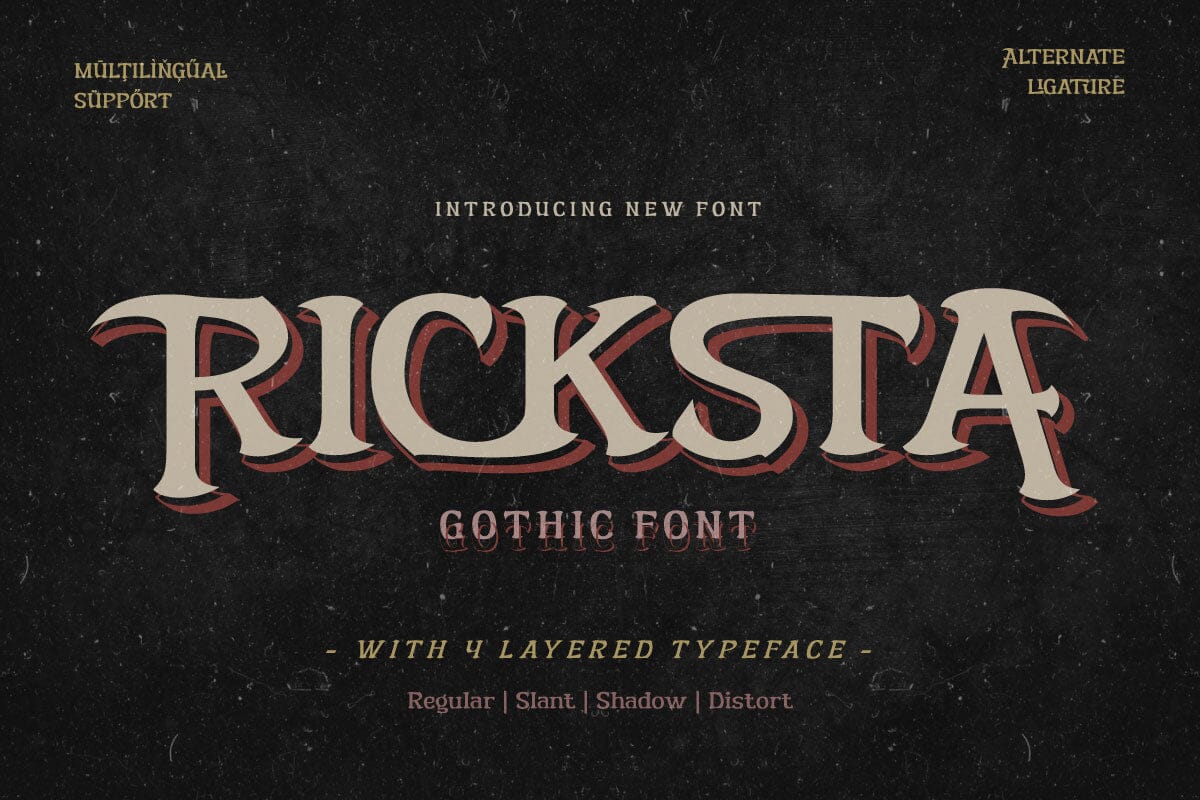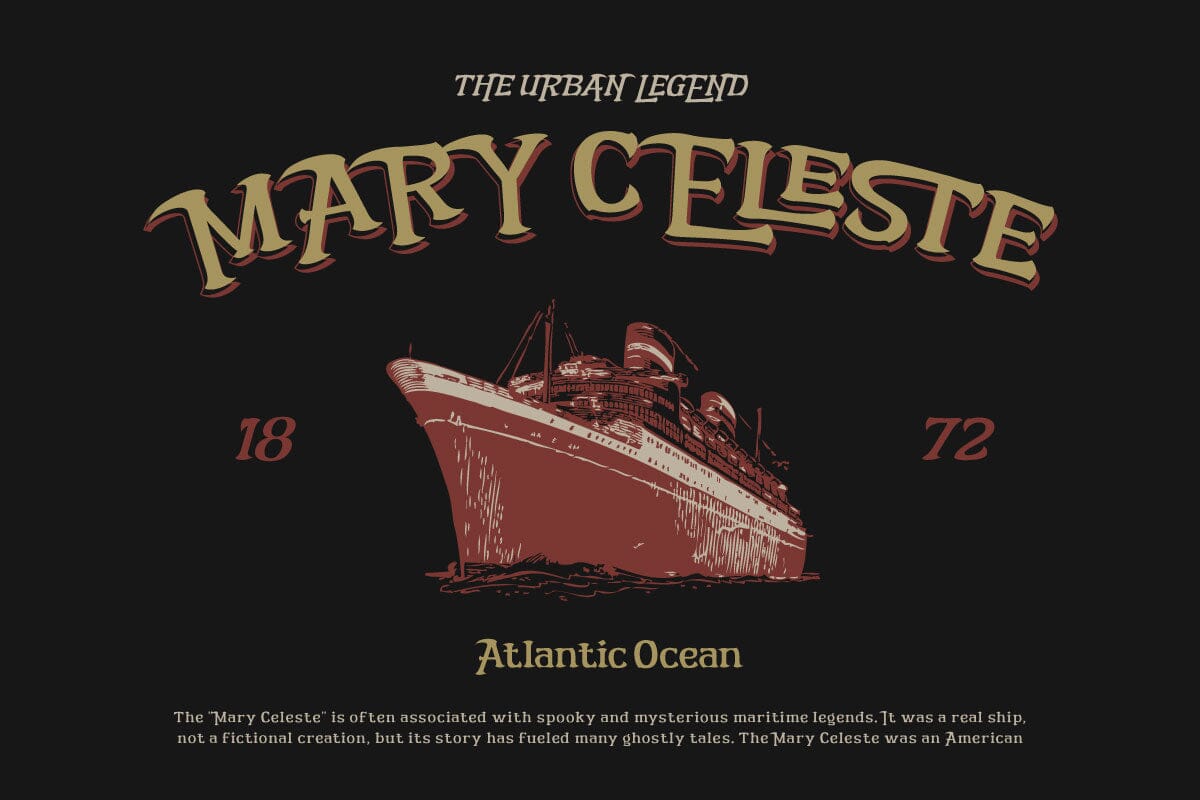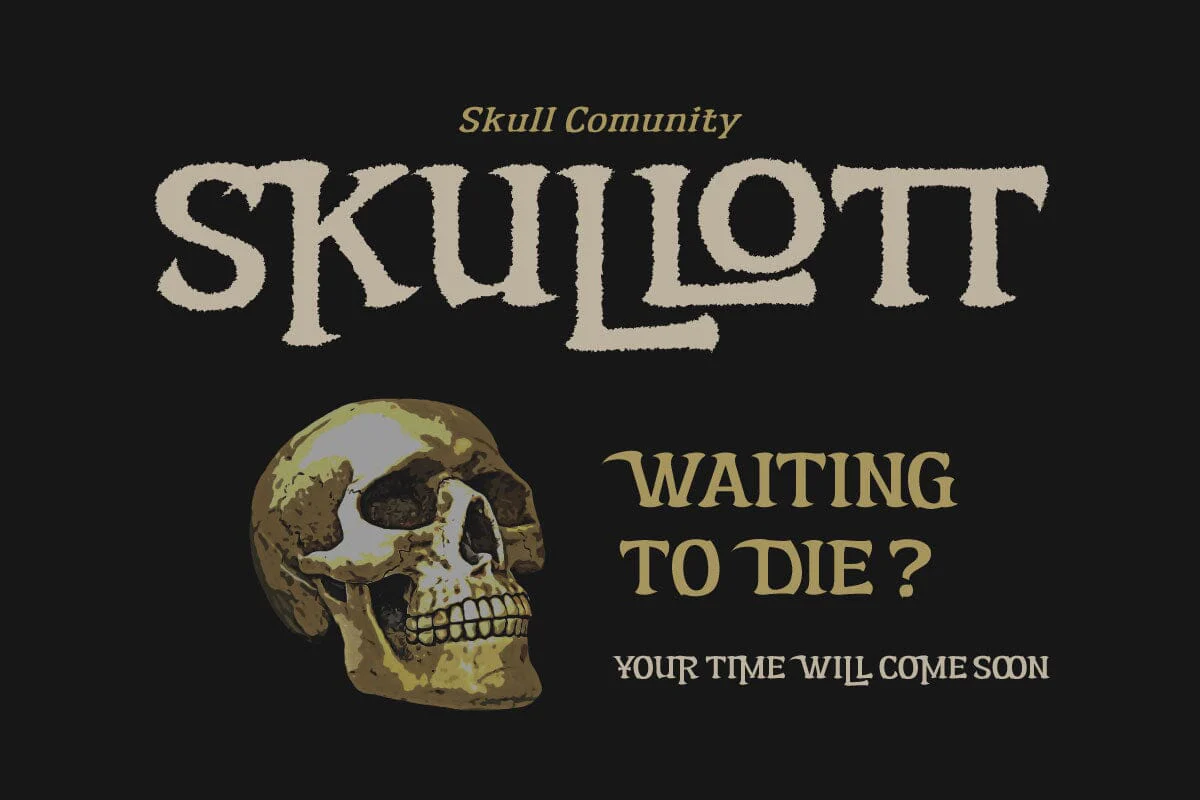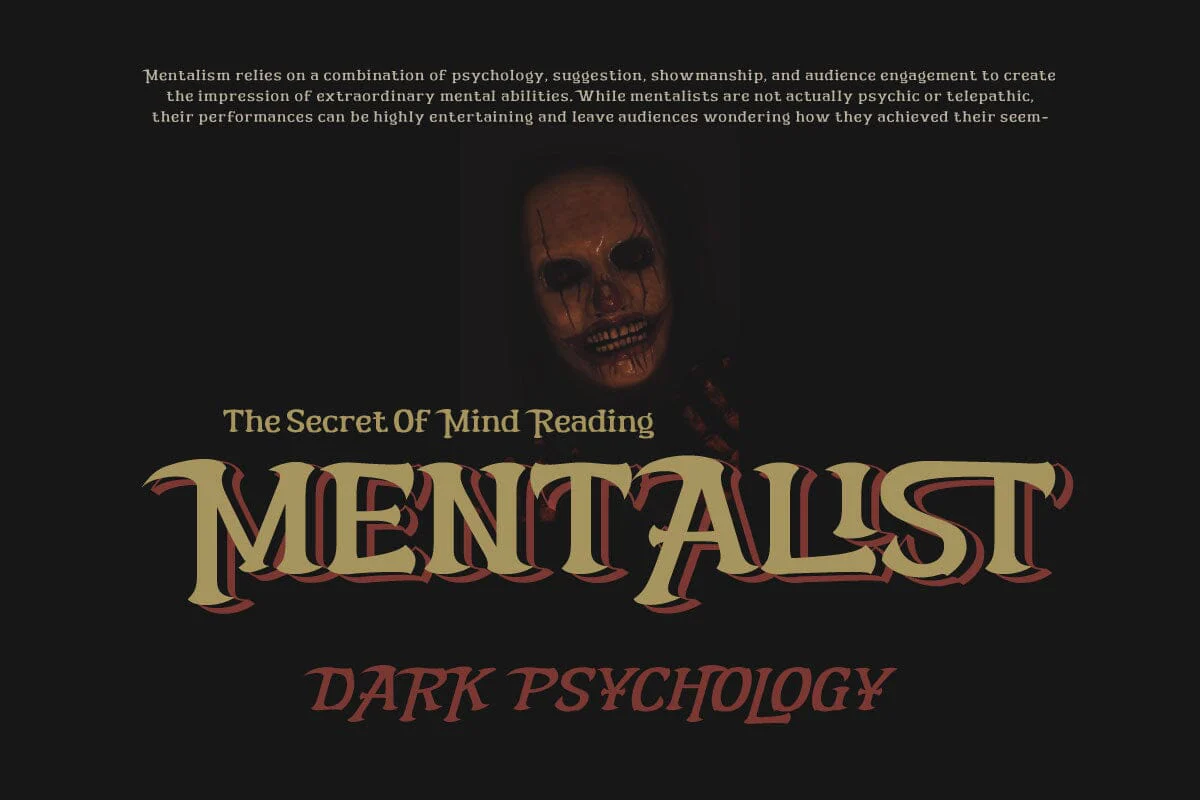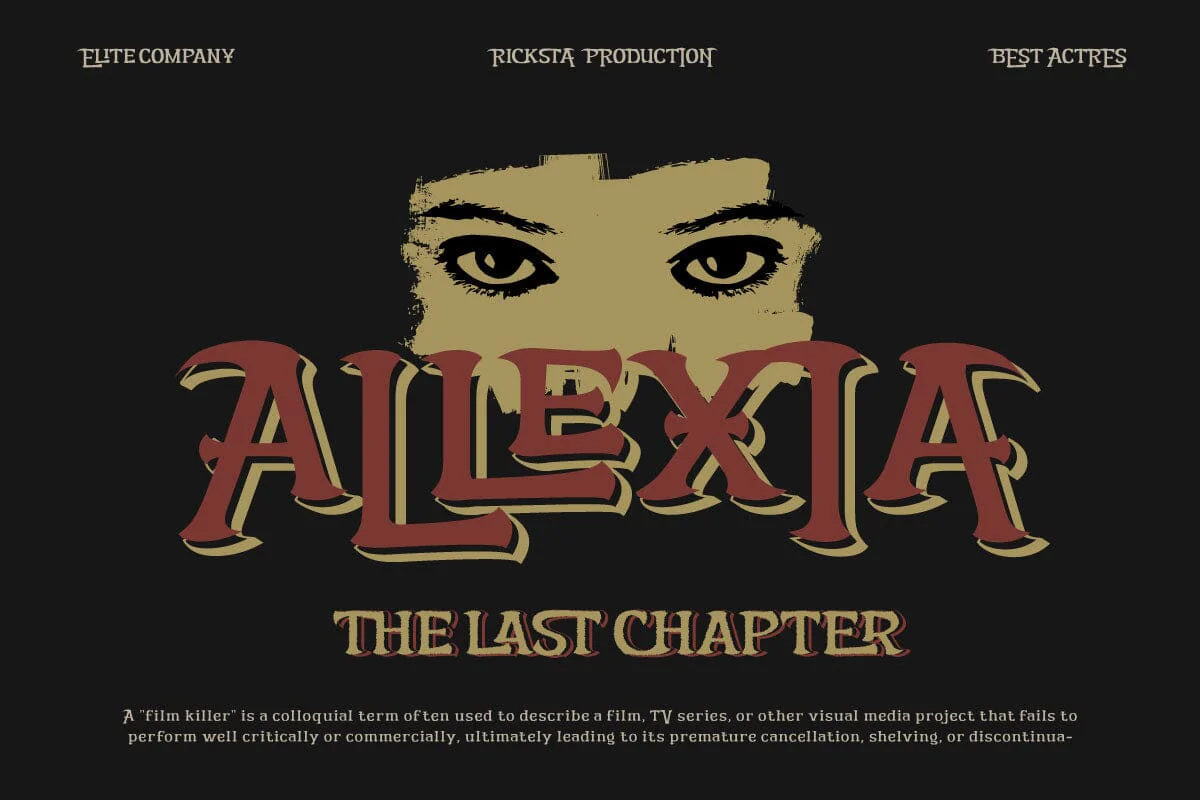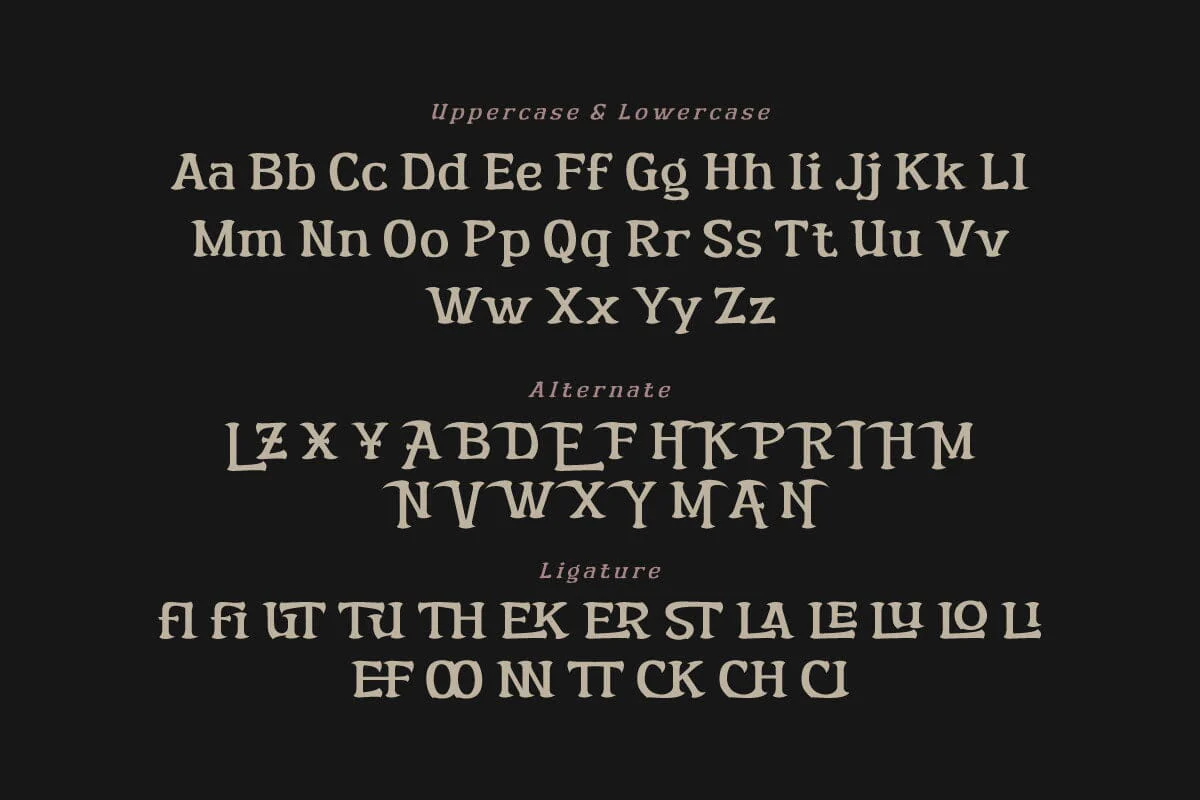
Ricksta - Gothic Font
Ricksta is a charming gothic serif font, with a unique sharp touch. If you are looking for an eye-catching and truly powerful look in your various visual branding design projects, then Ricksta is the answer.
This font has been created with detail and precision to meet the needs of your branding projects. With families that include regular, shadow, slant, and distort, you have a variety of options to create a look that matches your brand identity.
Ricksta also features alternate ligatures and characters, giving you the ability to create truly unique and captivating letter designs. Ricksta also supports multiple languages. That way, you can reach a global audience without limitations. This is your chance to make your brand stand out with a strong character.